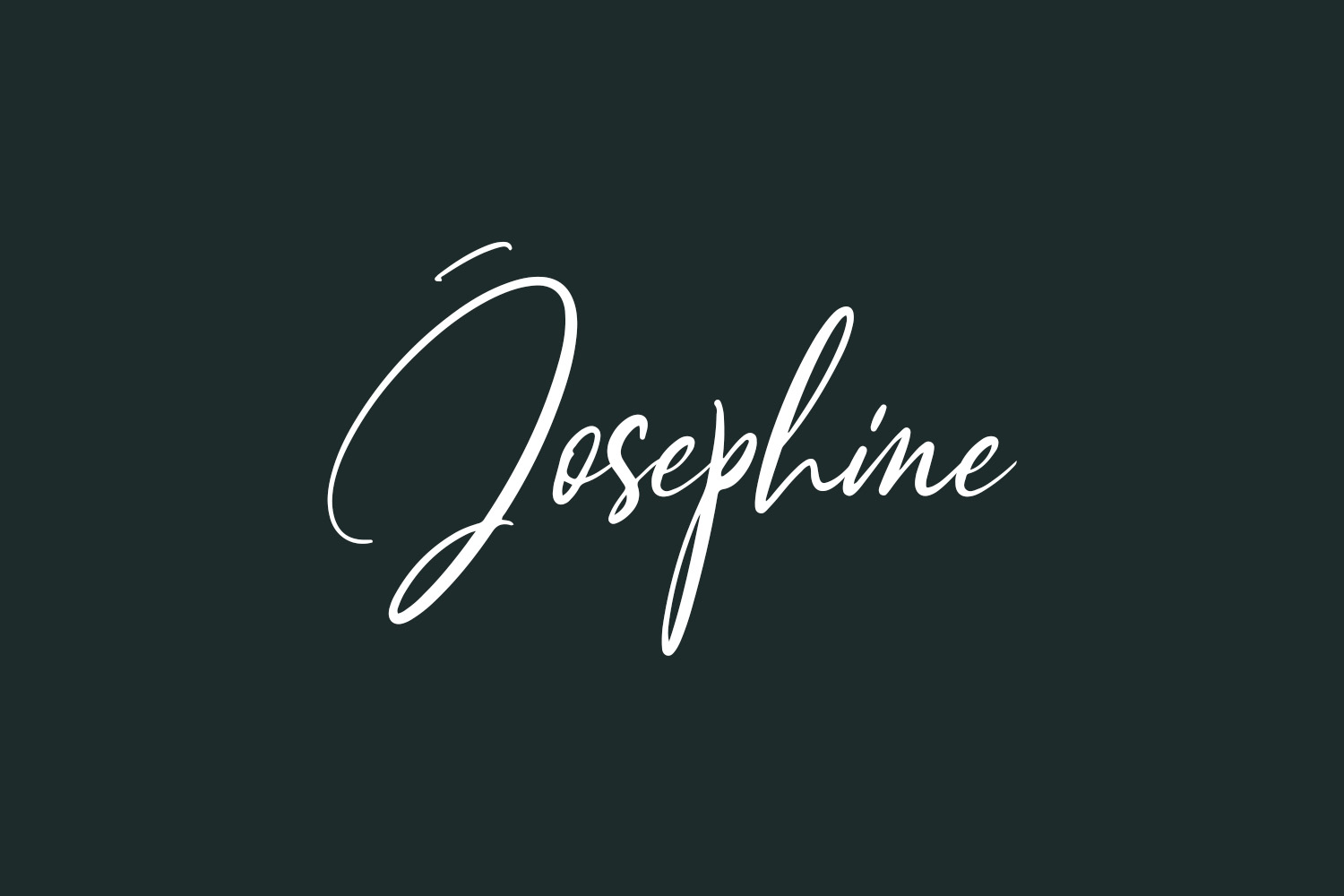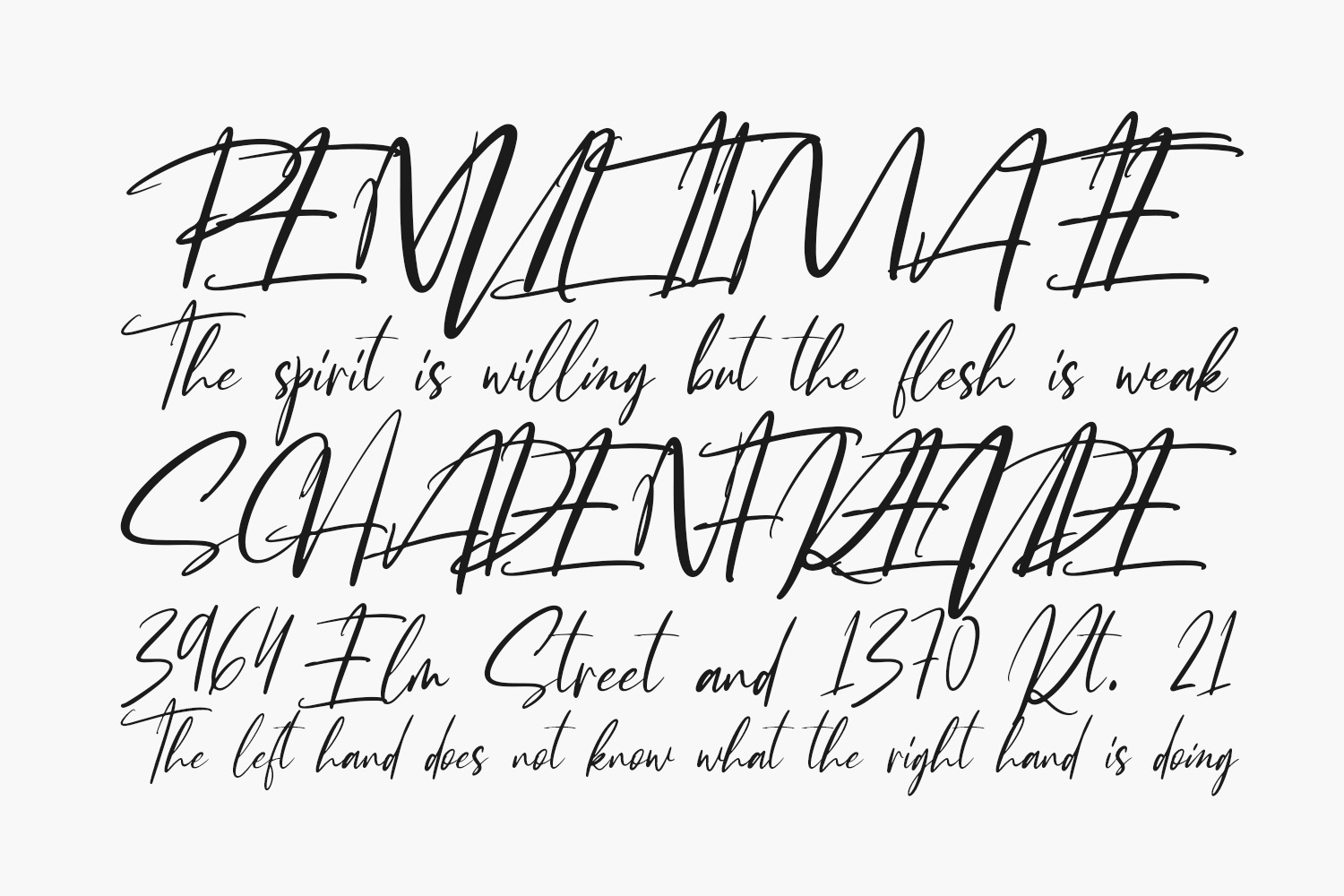
Josephine Free Font is a fashionable modern script. Every letter has been carefully crafted to give it a fresh and stylish look. It’s perfect for logotypes, branding, magazines, website or blog headlines, packaging, quotes, invitation cards, greeting cards, business cards, and much more. Josephine Free Font was designed by Runsell Studio and is free for personal use only. Please purchase the full version for commercial use.
Designed by Runsell Studio